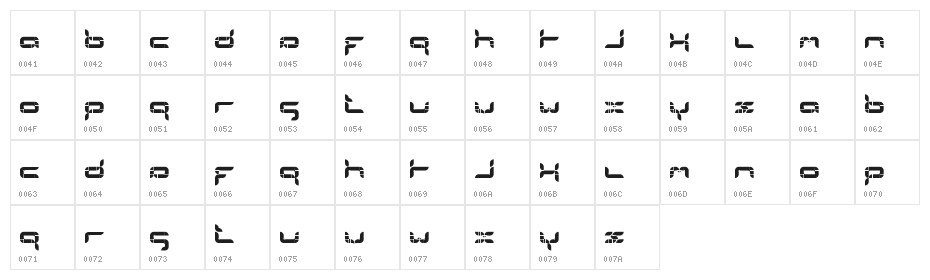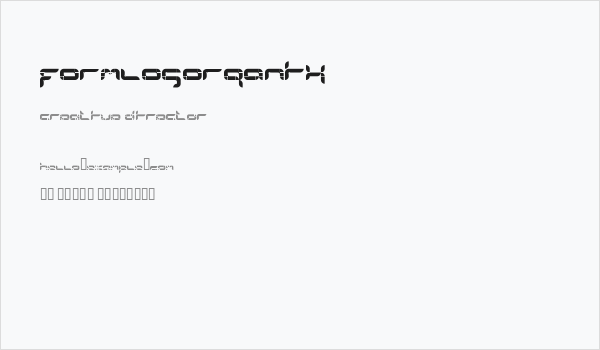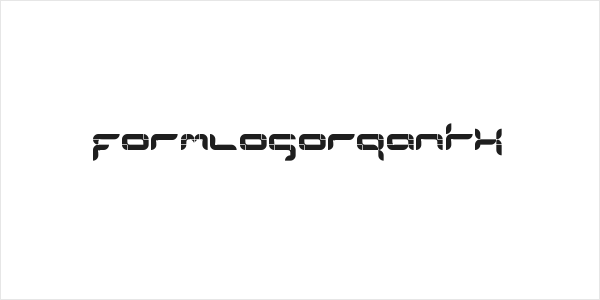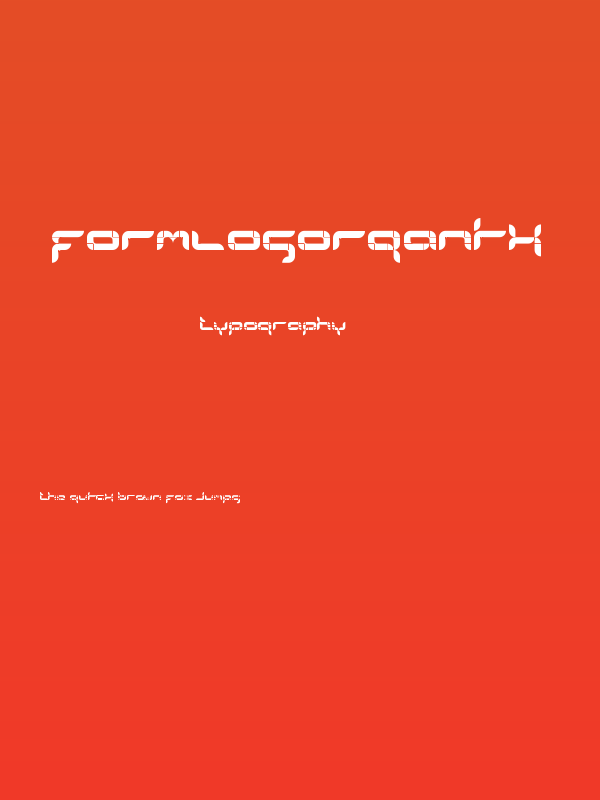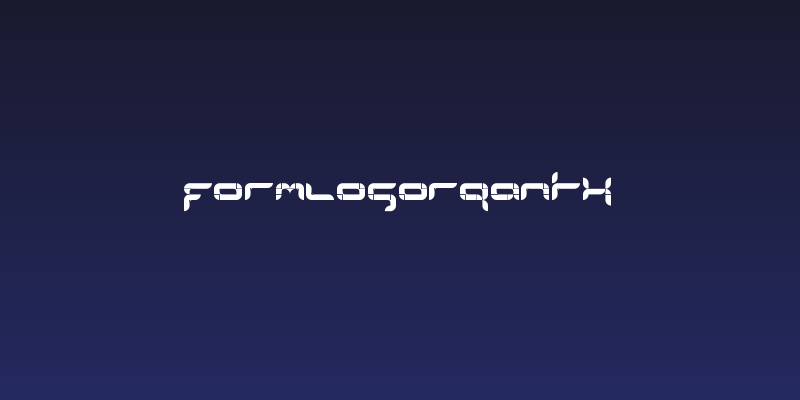
formlosOrganik Font
formlosOrganik Description
This font features a futuristic and geometric design with a distinct modular appearance. Each character is constructed with a series of connected lines and curves, creating a unique and modern aesthetic. The uppercase and lowercase letters share a consistent style, emphasizing symmetry and balance. The font's design is highly stylized, with a focus on angular shapes and a digital feel. It lacks traditional serifs, opting instead for a clean and streamlined look. The characters are evenly spaced, contributing to a uniform and cohesive appearance. This font is ideal for projects that require a contemporary and tech-inspired look.
| Proposed Projects | Ideal for tech branding, digital media, video game design, and futuristic-themed posters. |